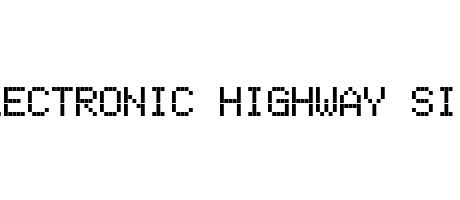
Electronic Highway Sign
Electronic Highway Sign is a bold, blocky font reminiscent of vintage digital displays or LED signs. Its strong, evenly spaced characters convey a sense of retrofuturism and stark simplicity, ideal for conveying information clearly, even from a distance, much like a real highway sign. The pixelated quality adds a distinct, slightly rough texture.